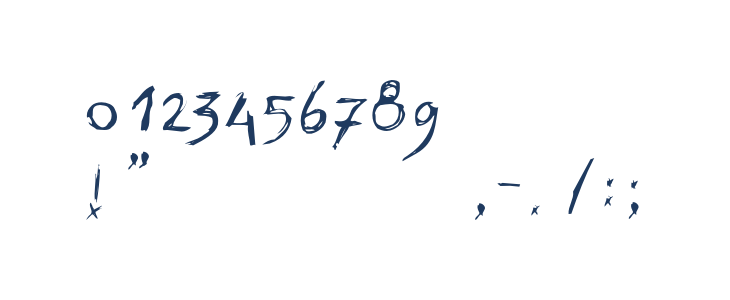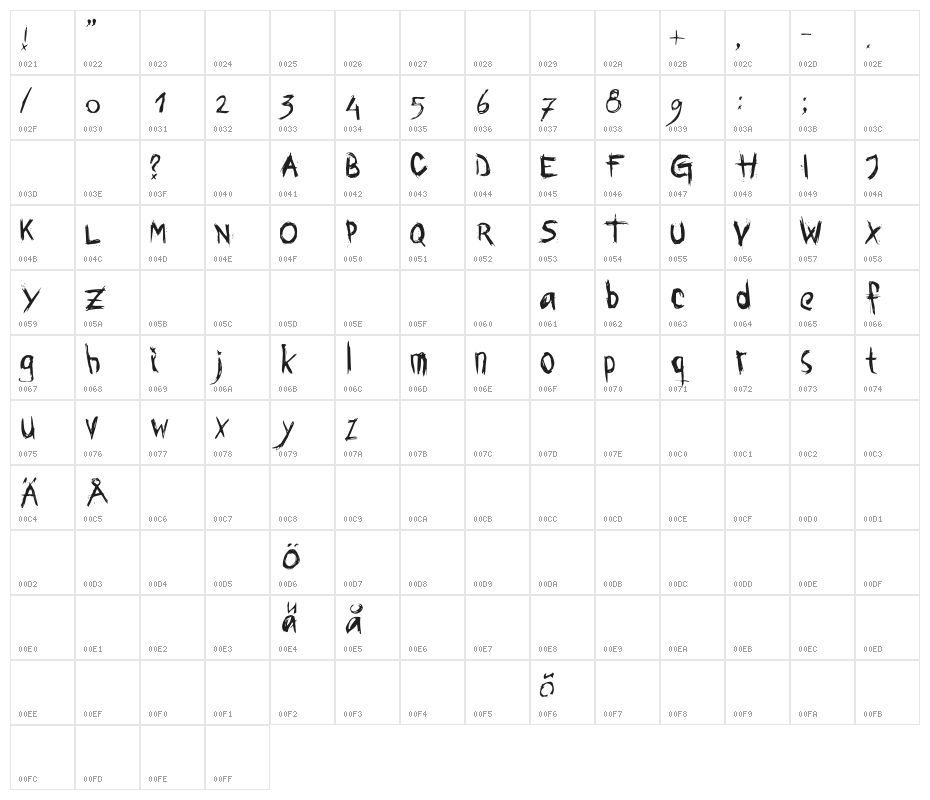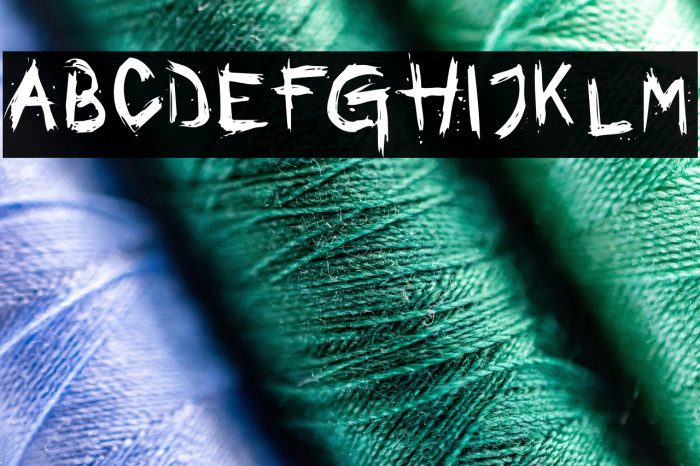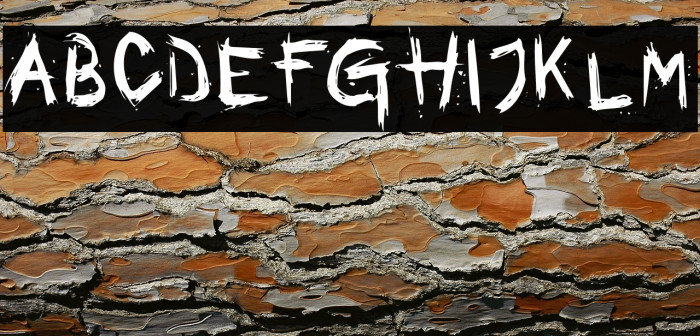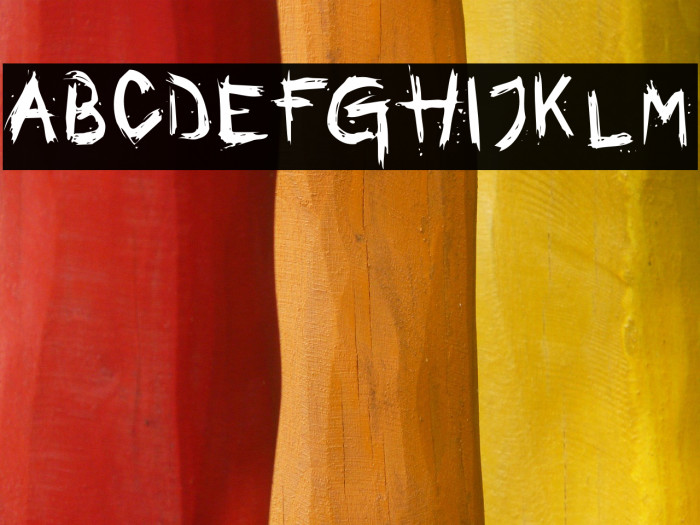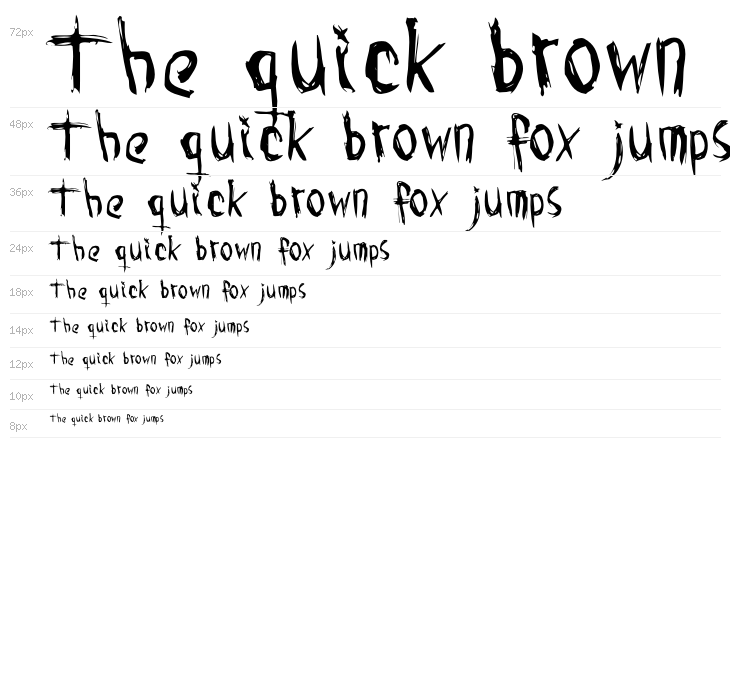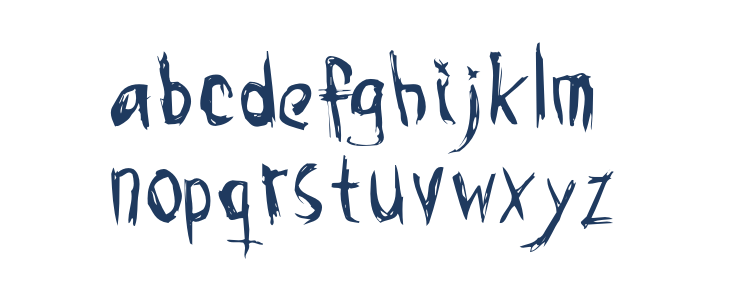
awe Font
awe Description
This font features a bold and expressive style with a brush-like texture that gives it a dynamic and energetic appearance. The strokes are irregular and jagged, creating a sense of movement and spontaneity. The uppercase and lowercase letters maintain a consistent style, with sharp angles and varying stroke widths that add to its dramatic flair. Numbers and special characters follow the same aesthetic, ensuring a cohesive look across all text elements. This font is ideal for projects that require a strong visual impact and a touch of artistic flair.
| Overall Style | Modern, Artistic |
| Use Case | Headlines, Logos, Artistic projects |
| Proposed Projects | Ideal for posters, album covers, graffiti art, and branding that requires a bold statement. |